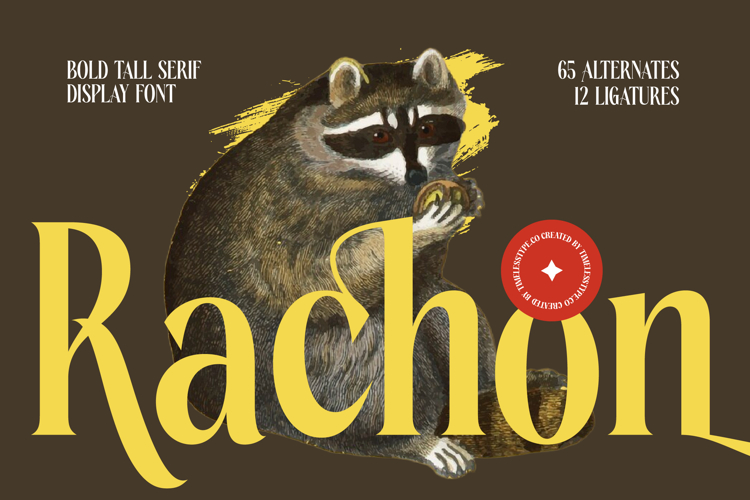
Rachon - Bold Tall Serif Display Font
Discover the power of undeniable presence with Font Rachon - Bold Tall Serif Display Font Serif Display, a typeface crafted to make an immediate impact. This bold tall serif display font exudes an unparalleled blend of classic elegance and modern audacity. Its distinctive high-contrast strokes and graceful curves are meticulously designed to capture attention and convey sophistication and authority. Ideal for projects demanding a striking visual identity, it transforms text into an extraordinary statement.
Unleash limitless creative potential with the extensive features of Font Rachon - Bold Tall Serif Display Font Serif Display. Boasting an impressive collection of 65 Alternates and 12 Ligatures, it offers unparalleled flexibility, allowing designers to sculpt unique typographic compositions for any vision. With its extensive multilingual support, Font Rachon - Bold Tall Serif Display Font Serif Display adapts seamlessly across global markets, making it incredibly versatile for international projects and ensuring your message resonates universally.
Elevate your brand aesthetic with the perfect partner for luxury branding and high-impact design. Font Rachon - Bold Tall Serif Display Font Serif Display is meticulously curated to shine in applications such as editorial layouts, elegant packaging, fashion campaigns, and sophisticated headlines. Its commanding yet refined character makes it ideal for logo design, magazine covers, and exclusive invitations, guaranteeing a premium feel and an unforgettable impression.